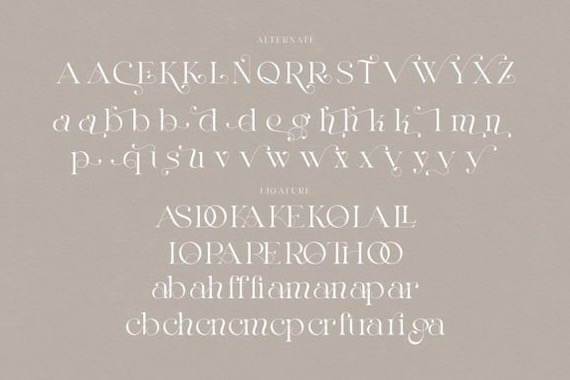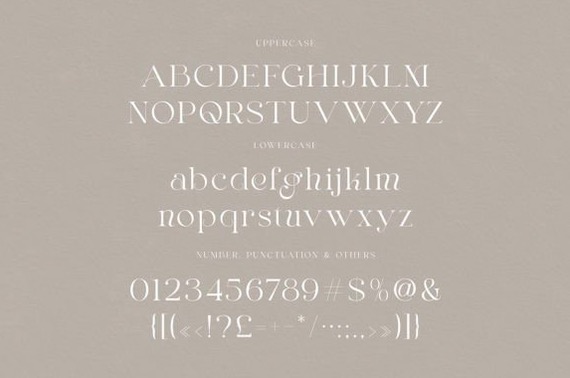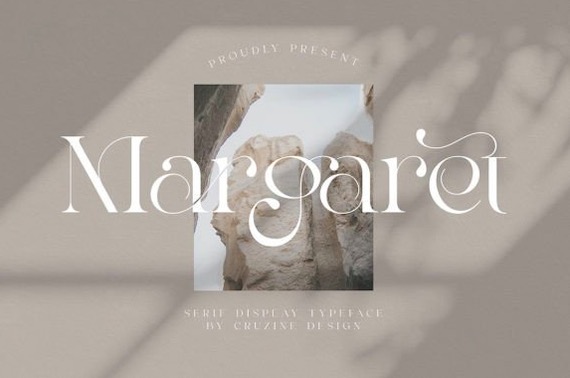
Margaret Font
Margaret serif is a chic and luxurious basic font that was created and shared by JumboDesign. It’s the epitome of style and exclusivity. Its modern and sleek design exudes sophistication and is perfect for high-end branding, advertising, and editorial layouts. With its unique features and eye-catching appeal, this font is a must-have for those who want to make a statement and elevate their designs to the next level. Keep in mind that the font is PUA encoded, meaning that you can access all delightful glyphs and swashes effortlessly.